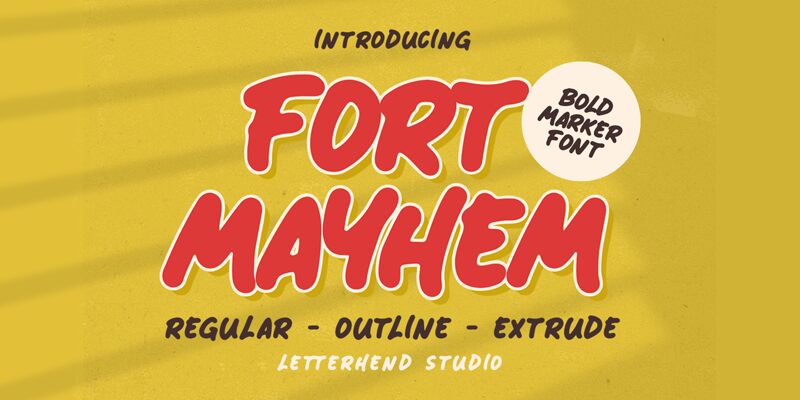
Fort Mayhem Two, a captivating brush-style font from the Fort Mayhem family by Letterhend Studio, exudes a bold and dynamic personality. This typeface boasts striking letterforms that seamlessly blend sharp edges with smooth, fluid curves, creating a visually striking and attention-grabbing aesthetic. The font's bold weight and distinctive brush-like strokes lend an air of rugged, yet refined, sophistication, making it a compelling choice for a wide range of design applications.
The versatility of Fort Mayhem Two shines through its ability to effortlessly adapt to diverse design contexts. Its assertive presence and striking visual impact make it an ideal selection for headlines, logos, branding materials, and editorial layouts, where it can command attention and convey a sense of strength and confidence. Additionally, this font's unique character lends itself well to packaging designs, product labeling, and promotional materials, where it can effectively communicate a sense of energy and dynamism.